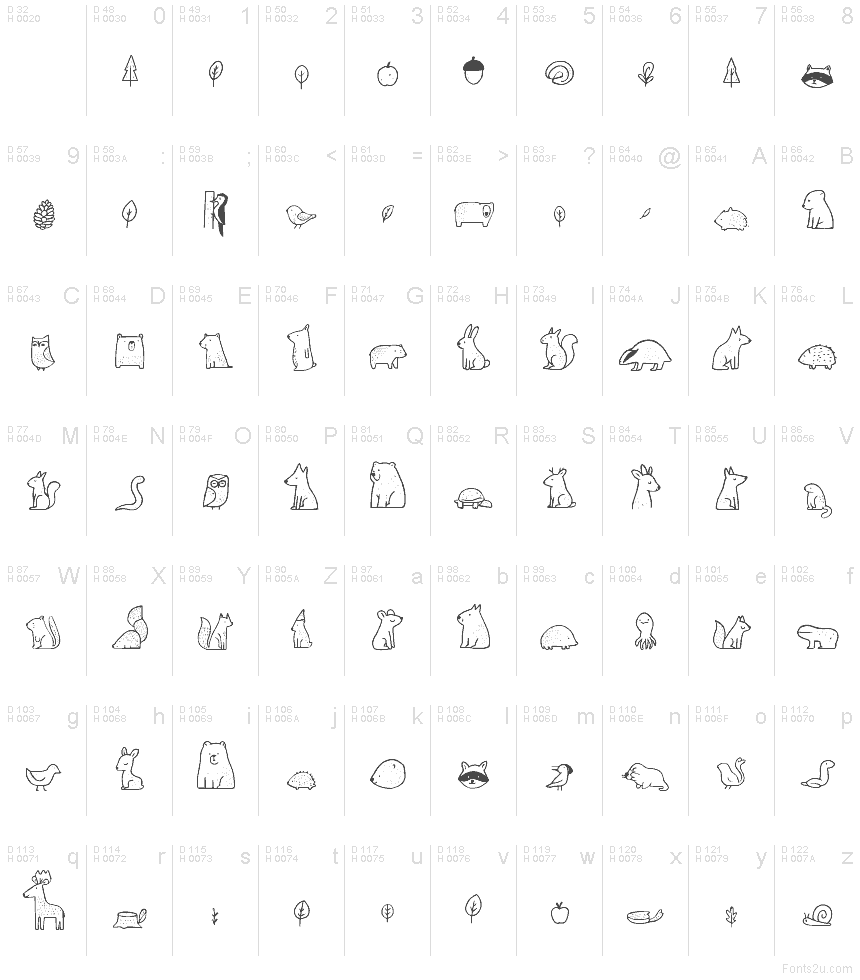
Nocturnal Animal
Nocturnal Animal font by BlackFridayFont FMF is a creative dingbat typeface made of animal shapes. It includes various illustrations of animals which can be used either separately or by arranging several together. Using it doesn’t require skill or experience; you can achieve desirable results in seconds.
The free dingbat decorative font comes with plenty of use options. It is suitable for T-shirts and clothing designs, packaging, posters, prints, cards, stationery designs, billboards, and eco-friendly branding projects. Other ideas: logo design for zoos and sanctuaries, personal digital printables for kids where they have to guess the animal from its silhouette (these can also educate them about nocturnal animals).